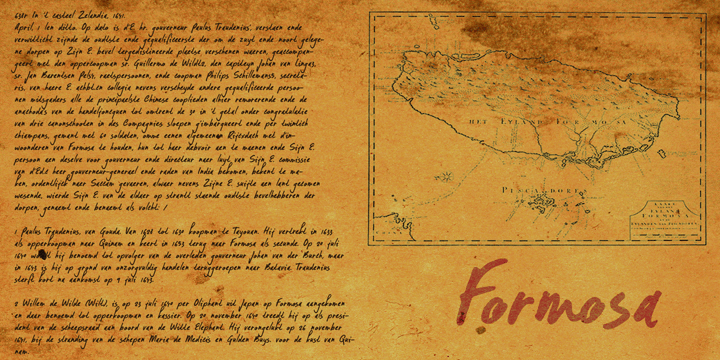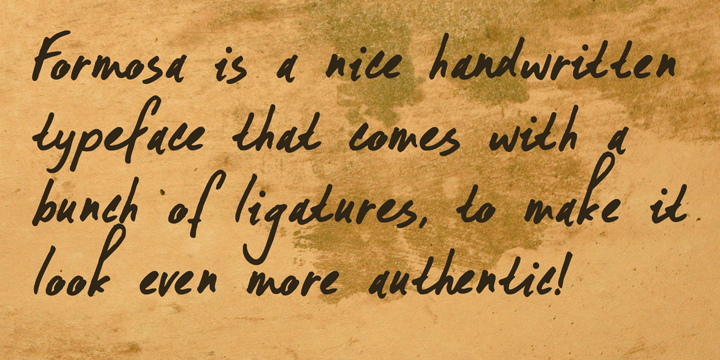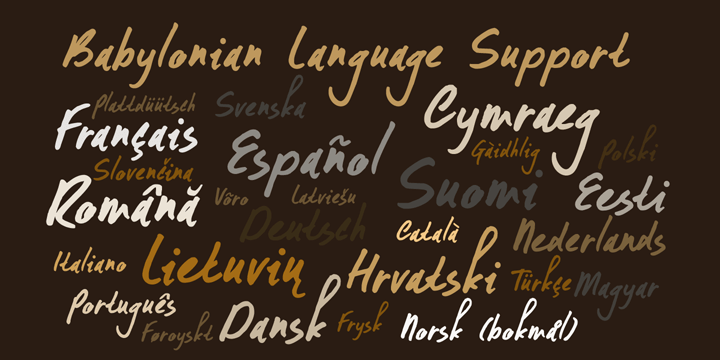
Formosa
Font Family by Hanoded
Formosa is the old, colonial name for Taiwan. Formosa means beautiful in Portuguese and I think this handwritten typeface has a certain beauty itself. It comes in three styles, all of which make extensive use of ligatures, to give the font an authentic, handwritten feel. Like most of my fonts, Formosa comes with Babylonian language support.